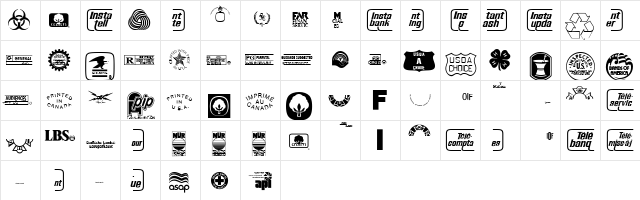
LogosServiceP03 Medium Font Preview
LogosServiceP03 Medium
Design Context for LogosServiceP03 Typeface
LogosServiceP03 is a composed and adaptable typeface that performs quietly and consistently across a wide range of design contexts.